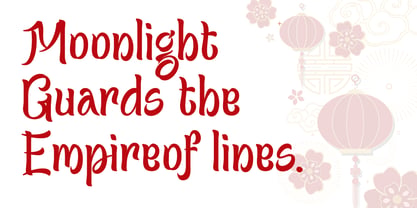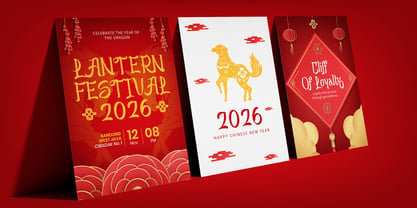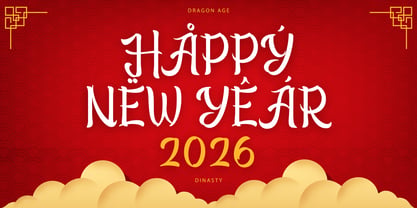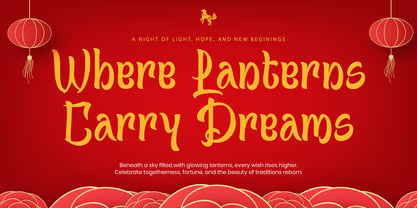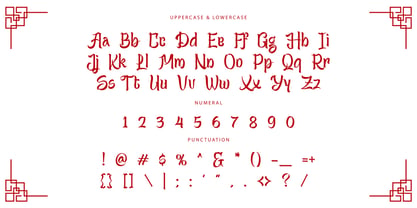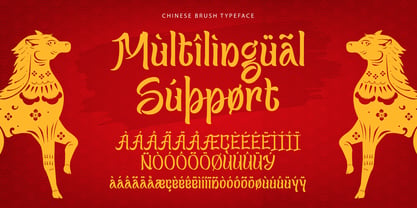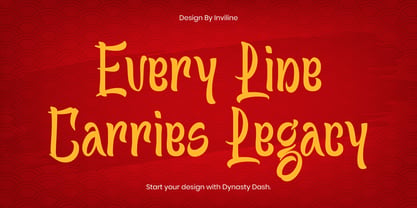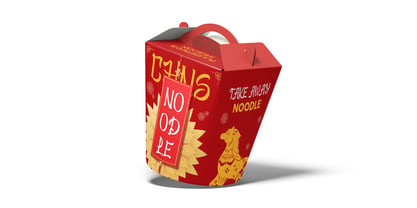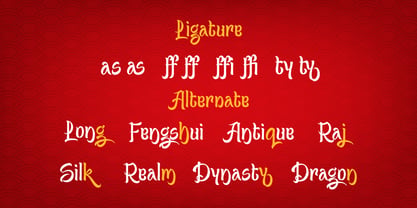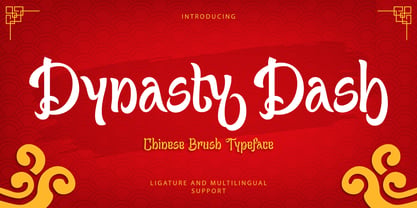
Dynasty Dash
by Inviline
Dynasty Dash is a bold Chinese-inspired brush typeface that blends traditional heritage with a modern festive rhythm, you get complete uppercase and lowercase letters, numerals, punctuation, stylish ligatures, and multilingual support, making it perfect for Lunar New Year designs, festival posters, packaging, restaurant branding, event invitations, red envelope graphics, product labels, cultural campaigns, and any project that calls for an expressive, handcrafted type style with strong character and celebratory impact.